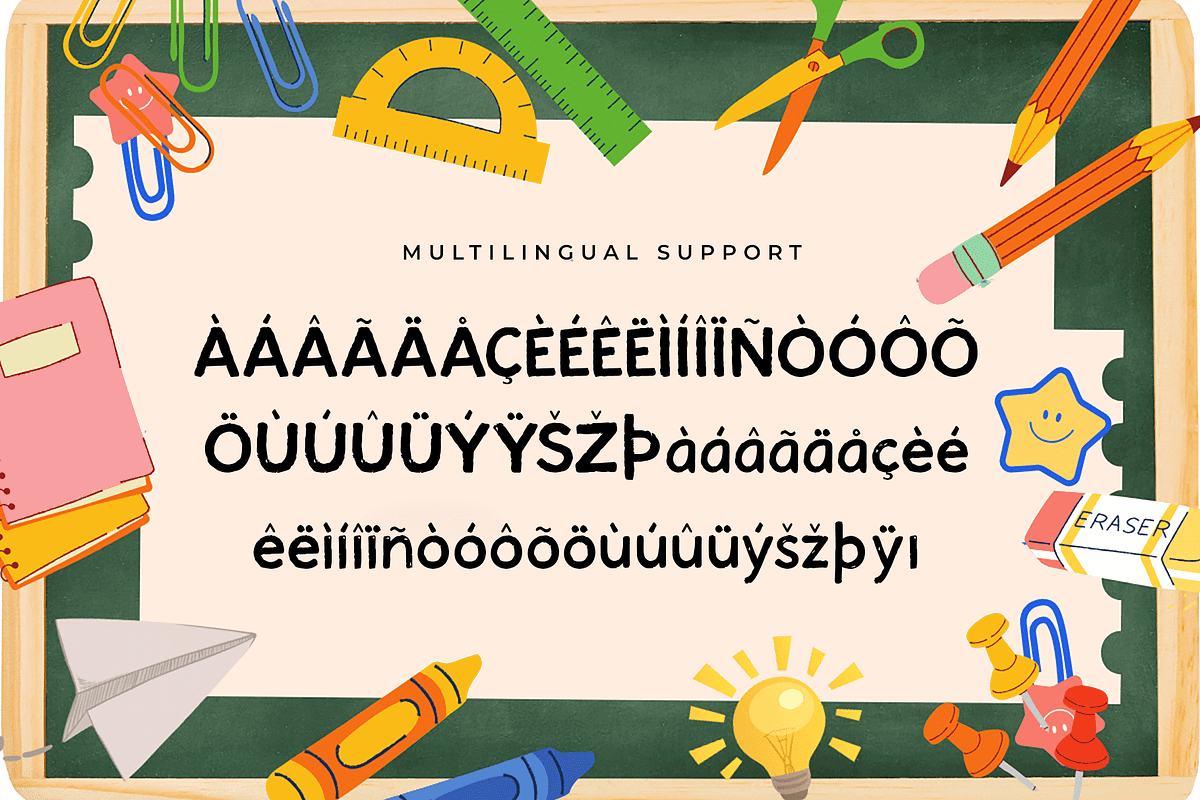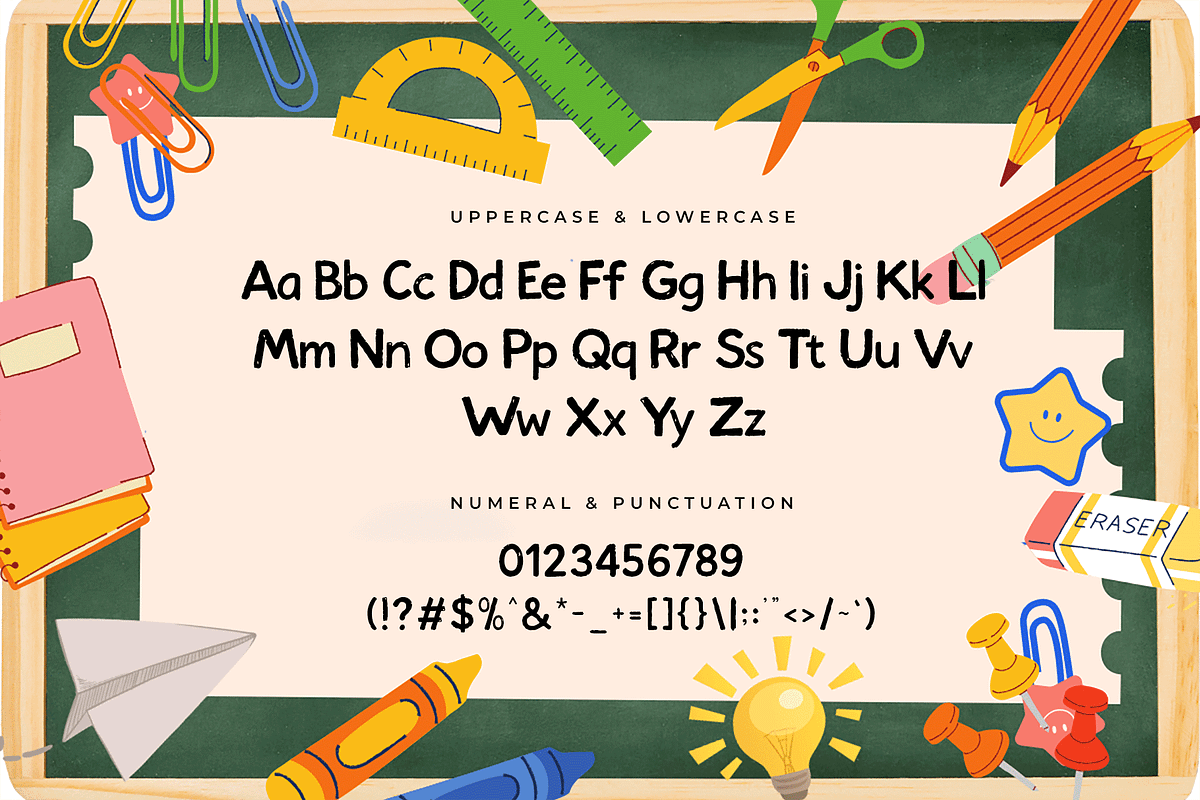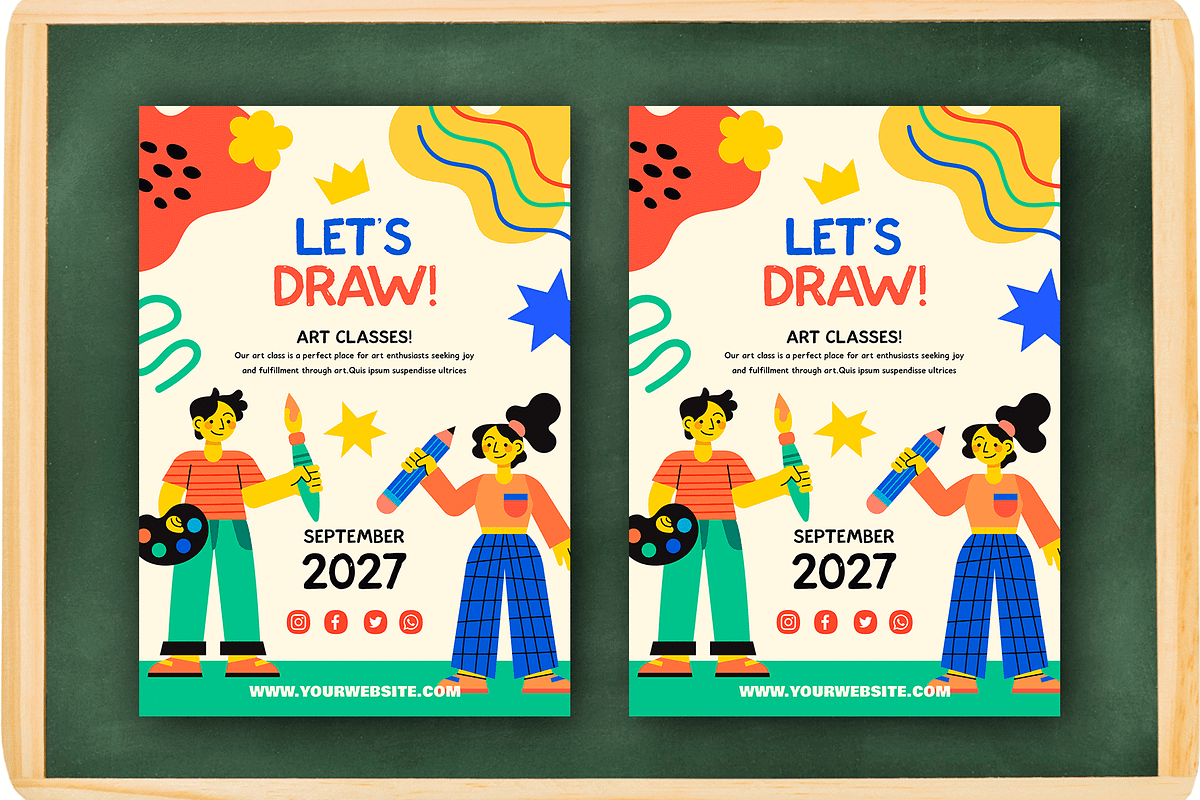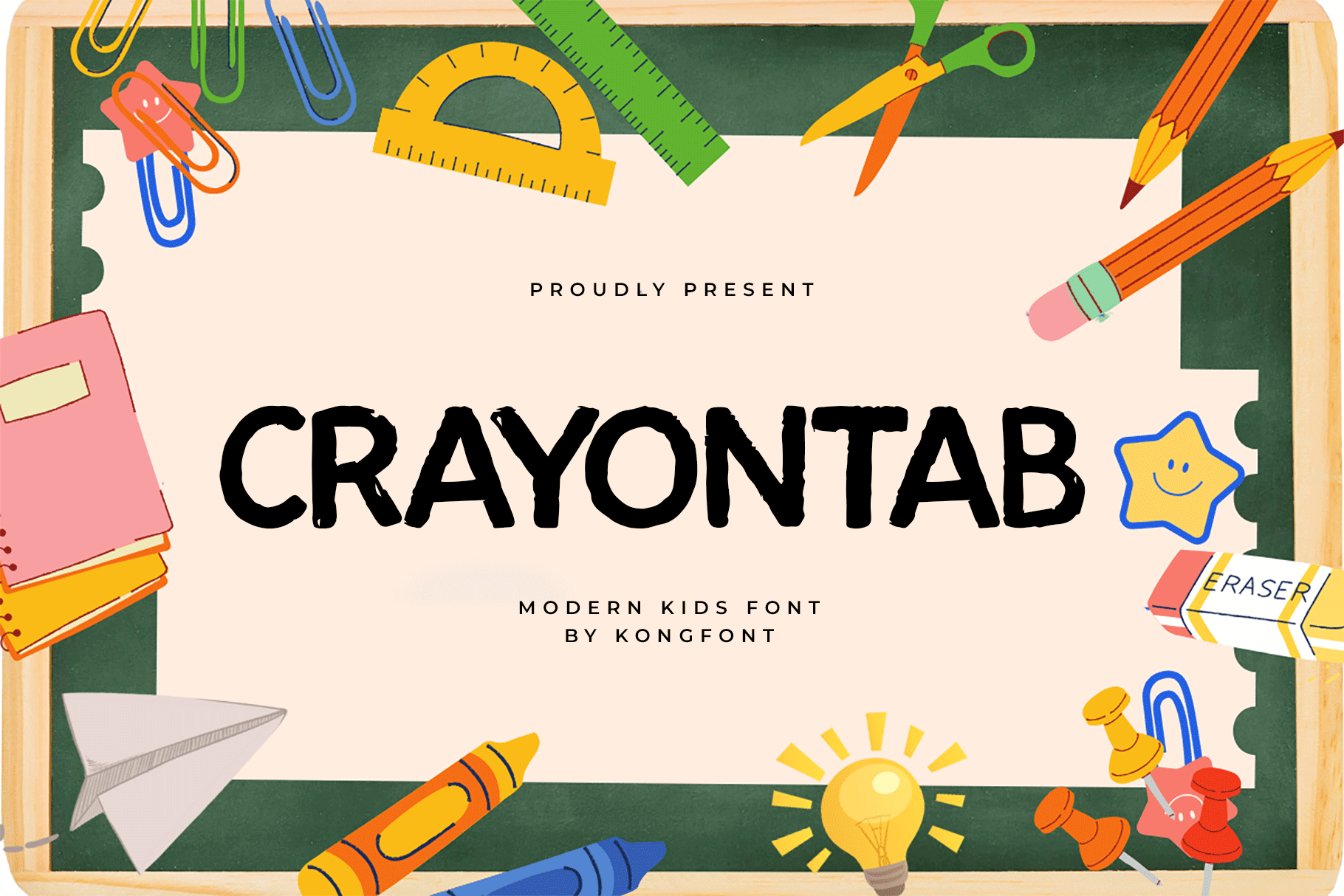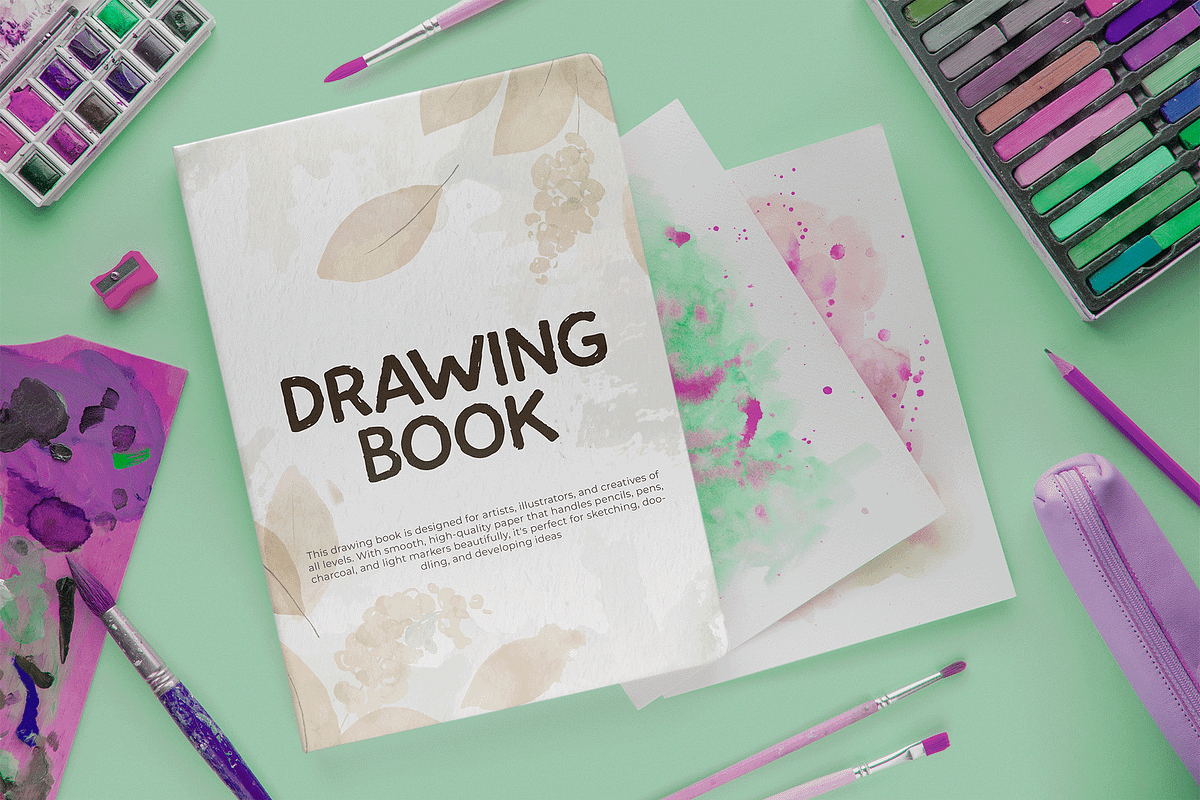
Crayontab – Modern Kids Font
Crayontab is a playful and vibrant modern kids font designed to spark imagination and joy. Inspired by the look of crayon doodles and children’s handwriting, this typeface features rounded edges, cheerful shapes, and a hand-drawn feel that’s perfect for kid-focused design projects.
Whether you're working on educational materials, storybooks, toy packaging, birthday invitations, or playful branding, Crayontab delivers a friendly and approachable vibe. Its legible yet fun character set makes it ideal for both print and digital use.
Crayontab includes uppercase and lowercase letters, numbers, punctuation, and multilingual support everything you need to create bright, engaging, and joyful designs for young audiences.